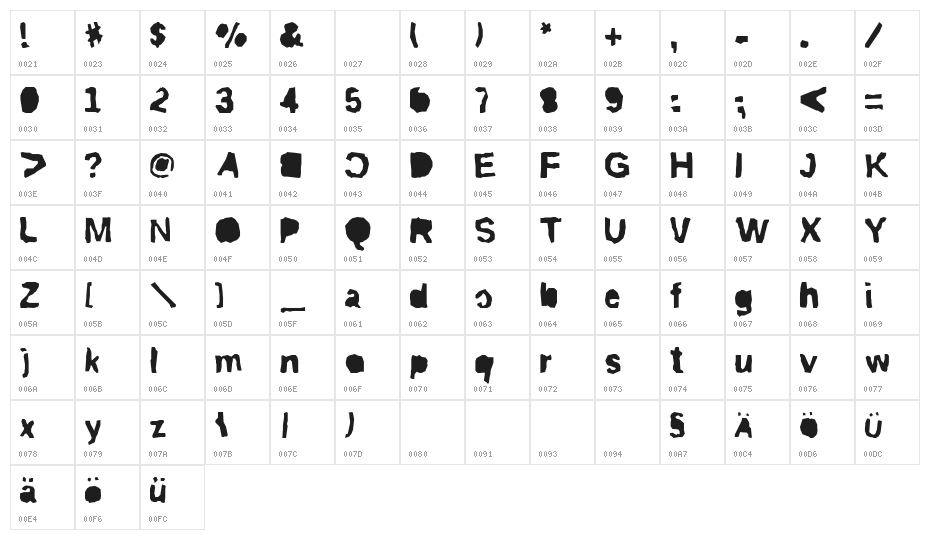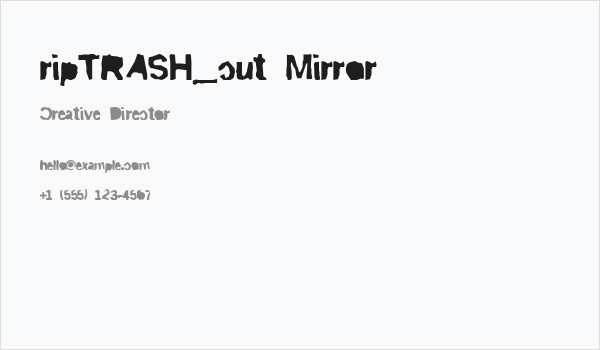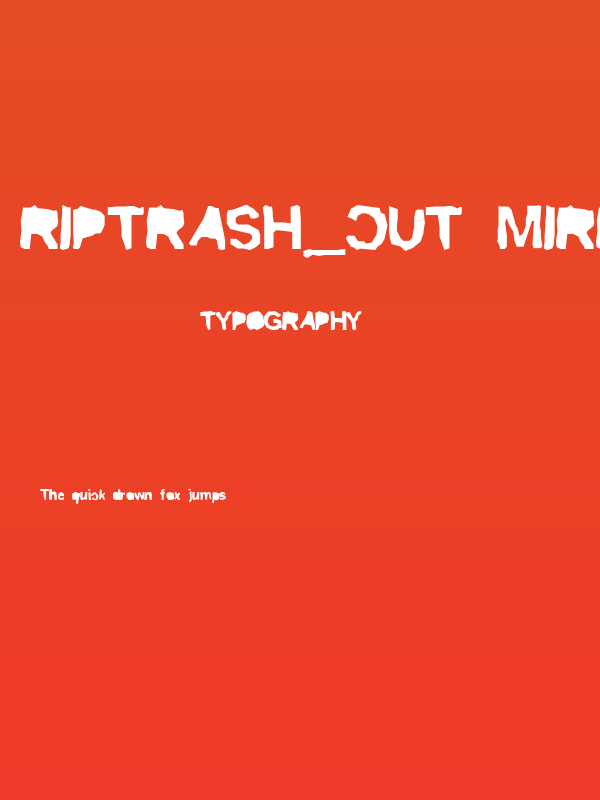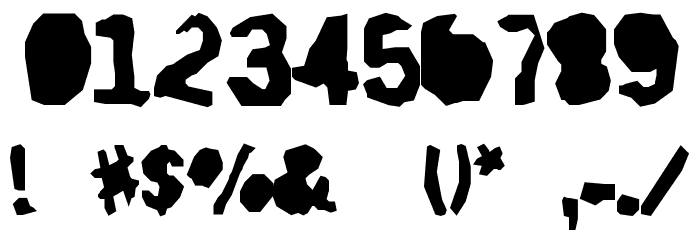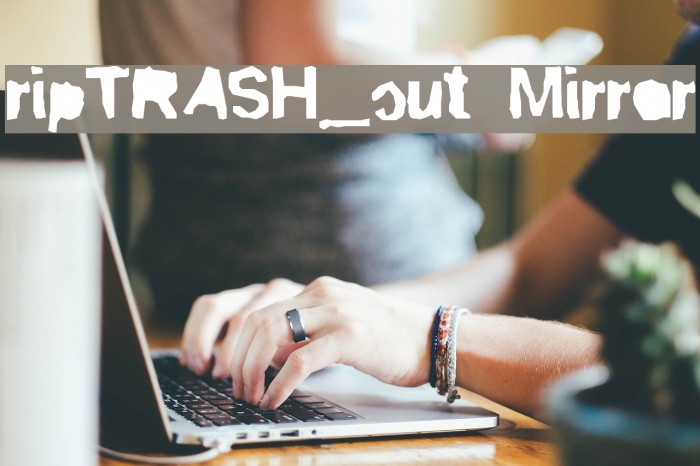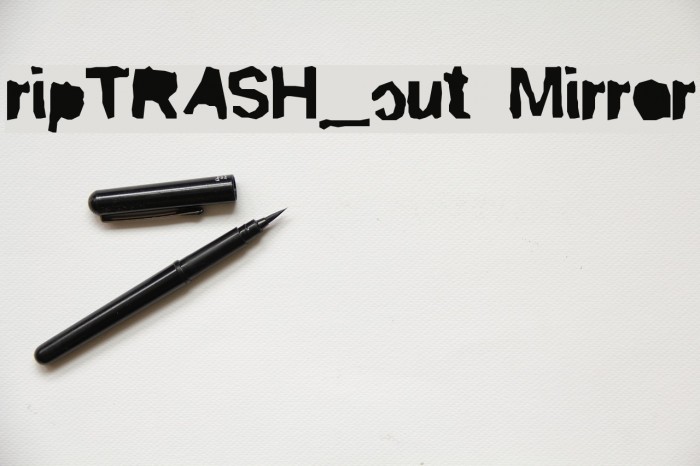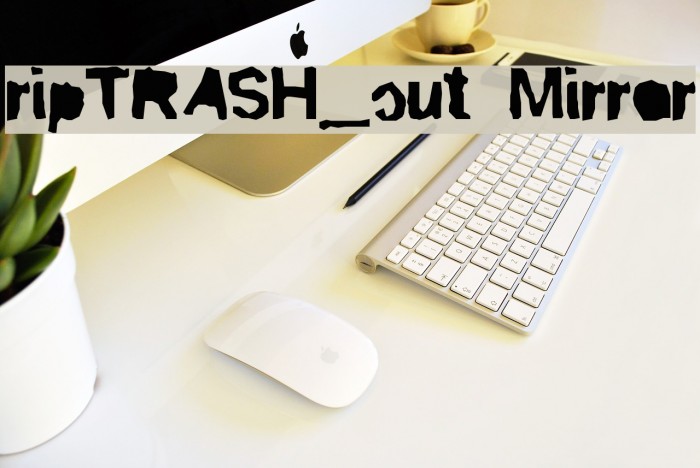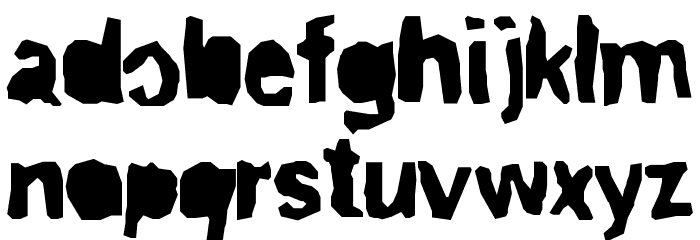
ripTRASH_cut Mirror Font
ripTRASH_cut Mirror Description
This font features a rugged, distressed appearance that mimics the look of torn paper or rough edges. The characters are bold and irregular, with a hand-crafted feel that adds a unique, artistic touch. The uppercase and lowercase letters maintain a consistent style, with jagged edges and uneven lines that create a sense of movement and energy. The numbers and special characters follow the same design principles, ensuring a cohesive look across all elements. This font is ideal for projects that require a bold, eye-catching design with a touch of grunge or urban flair.
| Overall Style | Grunge, Urban, Artistic |
| Proposed Projects | Ideal for posters, album covers, street art, and edgy branding projects. |